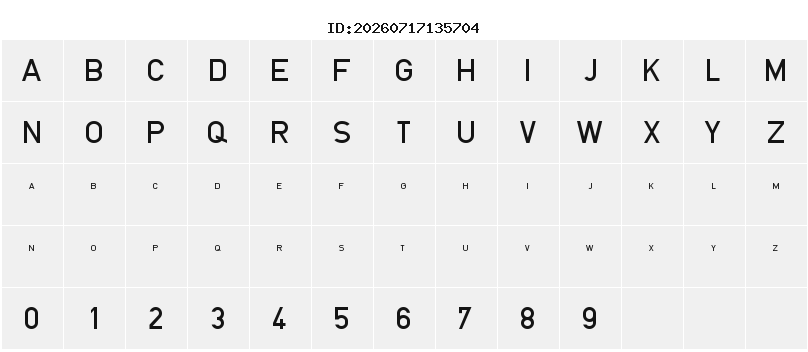
About Blockschrift für Flugzeuge.ttf
Blockschrift für Flugzeuge.ttf is a modern, elegant sans-serif font designed for ultimate readability and visual harmony. Perfect for branding, headlines, web design, and print materials.